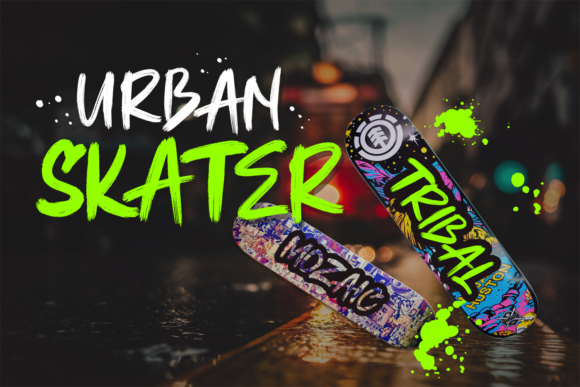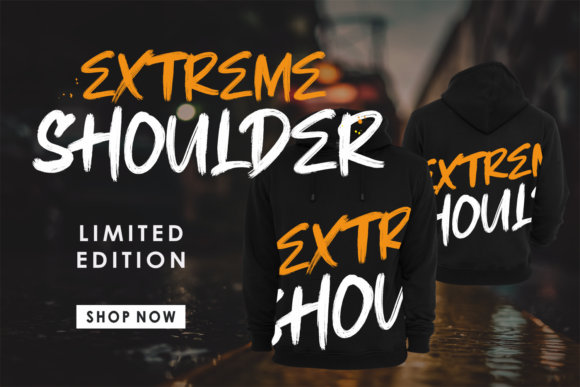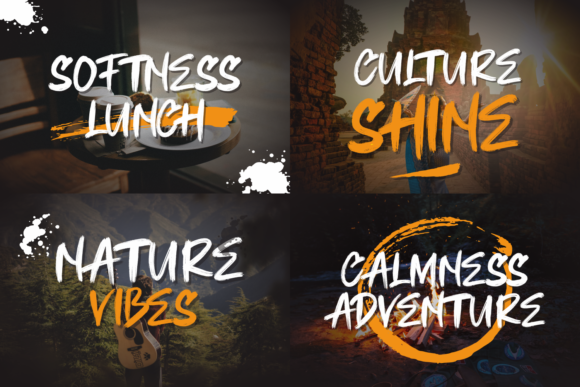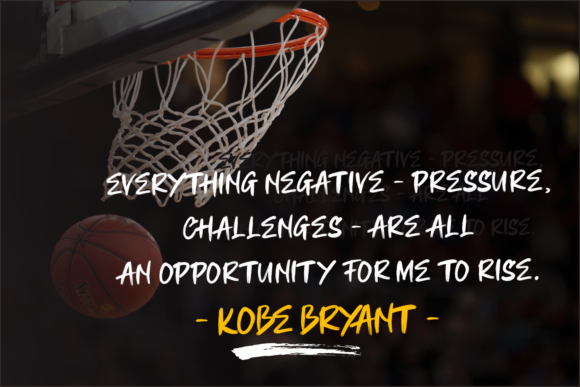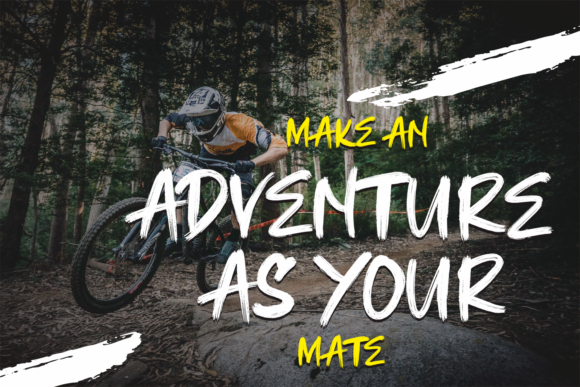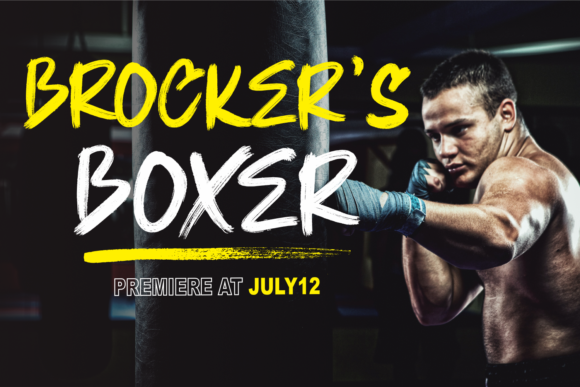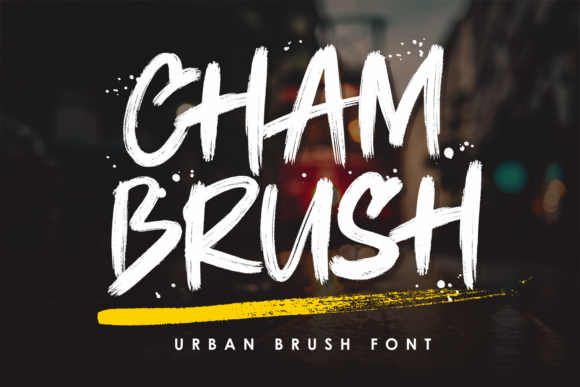
Introducing Chambrush Font: The Perfect Casual and Fun Display Font for Designers and Crafters
Are you tired of using the same old fonts for your design projects? Look no further! Chambrush font is here to add a touch of casual fun to your logos, branding, social media, and DIY projects. This display font, created using a brush pen, is perfect for designers and crafters who want to add a personal and creative touch to their work.
What is Chambrush Font?
Chambrush font is a unique and playful display font that is designed to resemble handwriting with a brush pen. Its casual and fun style makes it perfect for a variety of design projects, from logos and branding to social media graphics and crafty DIY projects. The font’s irregularities and imperfections give it a charming, handmade feel that is sure to capture the attention of your audience.
Features of Chambrush Font
- Casual and Fun Style: Chambrush font has a relaxed and playful vibe that is perfect for designs that require a personal touch.
- Brush Pen Effect: The font’s brush pen effect gives it a unique and authentic look that is sure to make your designs stand out.
- Perfect for Display Text: Chambrush font is designed specifically for display text, making it perfect for headlines, titles, and other prominent text elements.
- Easy to Read: Despite its casual style, Chambrush font is easy to read, making it perfect for designs that require a clear and concise message.
Uses of Chambrush Font
Chambrush font is versatile and can be used for a variety of design projects, including:
- Logos and Branding: Chambrush font is perfect for creating unique and memorable logos and branding elements.
- Social Media Graphics: The font’s casual and fun style makes it perfect for social media graphics, such as Facebook posts, Instagram stories, and Twitter headers.
- Crafty DIY Projects: Chambrush font is perfect for crafty DIY projects, such as handmade cards, gift tags, and other paper crafts.
- Signage and Posters: The font’s display style makes it perfect for signage and posters that require attention-grabbing headlines.
Tips for Using Chambrush Font
Here are some tips for using Chambrush font effectively in your designs:
- Use it for Display Text: Chambrush font is designed specifically for display text, so use it for headlines, titles, and other prominent text elements.
- Pair it with a Simple Font: Pair Chambrush font with a simple font for body text to create a clear and readable design.
- Experiment with Colors: The font’s casual style makes it perfect for experimenting with different colors and color combinations.
- Don’t Overuse it: Use Chambrush font sparingly to avoid overwhelming your design.
Chambrush font is a unique and playful display font that is perfect for designers and crafters who want to add a personal and creative touch to their work. Its casual and fun style, combined with its brush pen effect, makes it perfect for a variety of design projects, from logos and branding to social media graphics and crafty DIY projects. With its ease of use and versatility, Chambrush font is sure to become a favorite in your design arsenal.